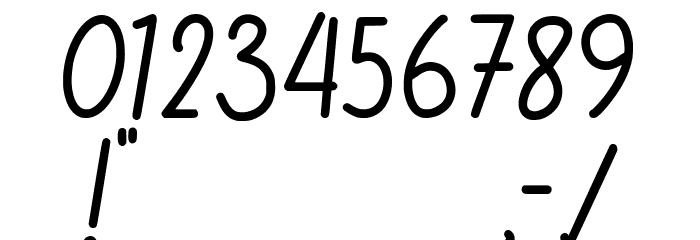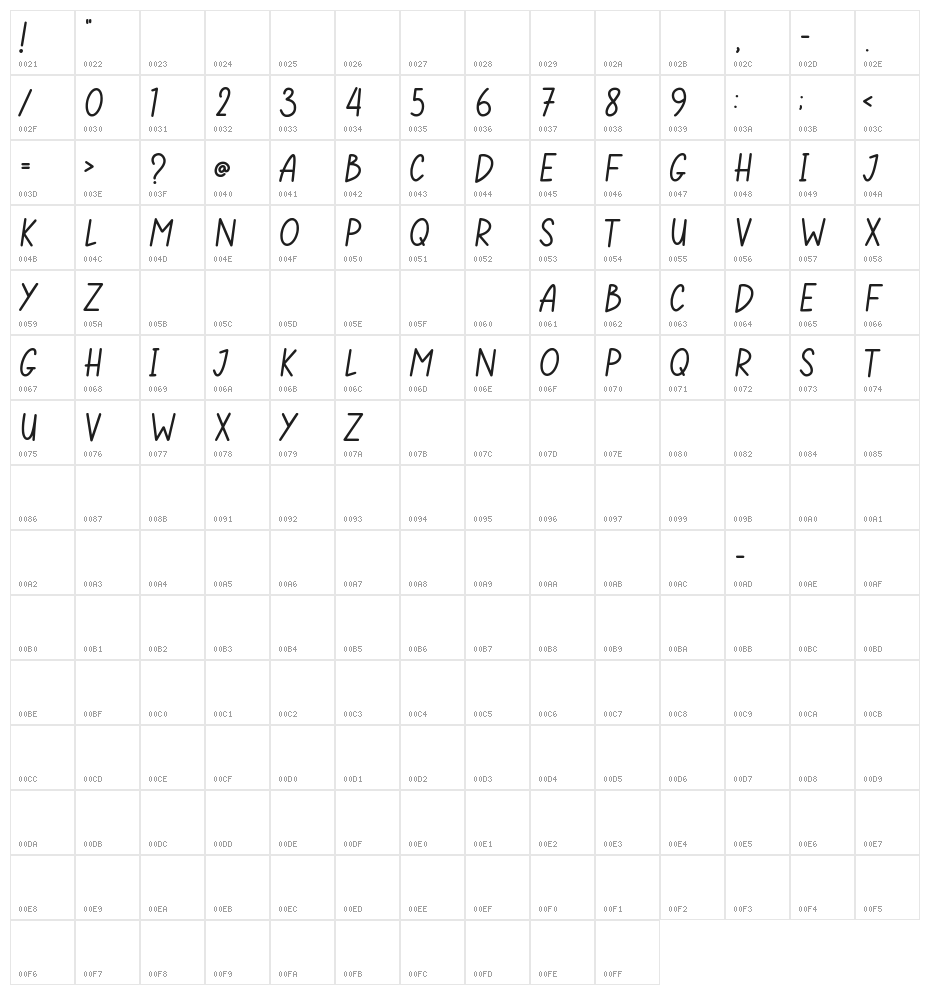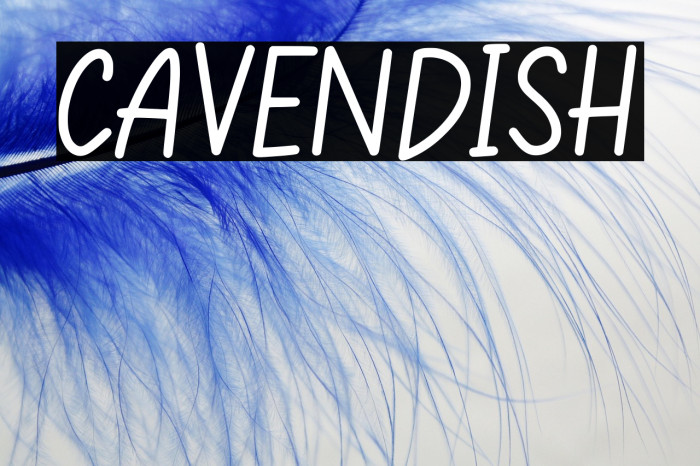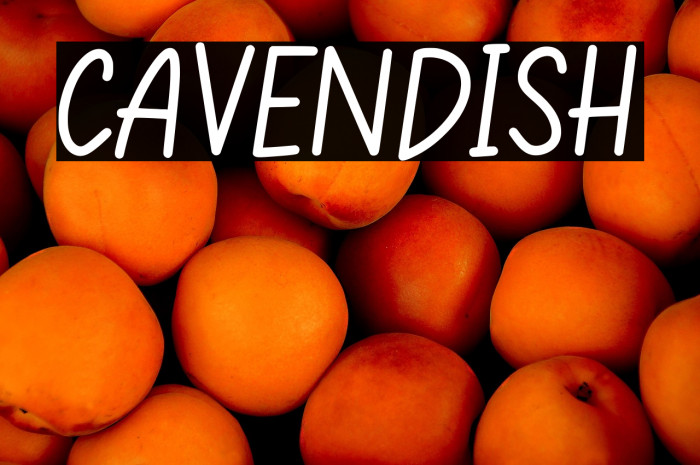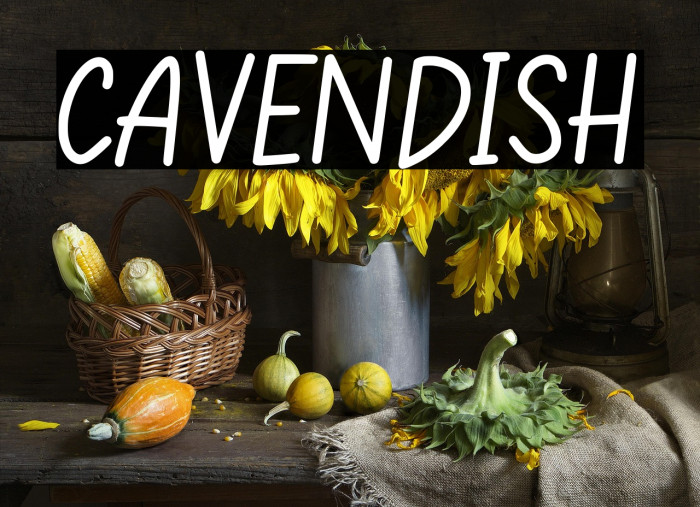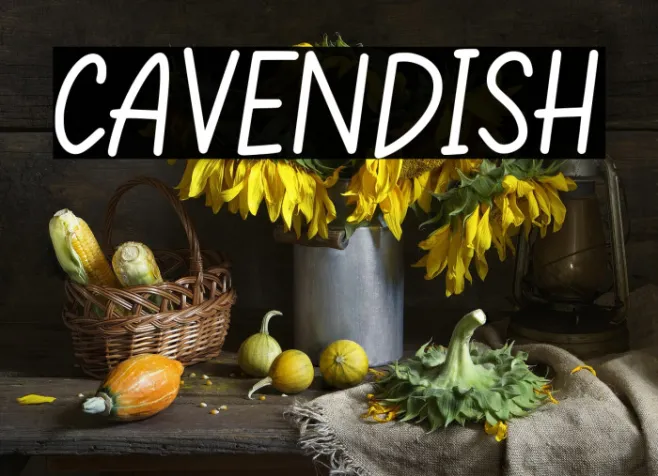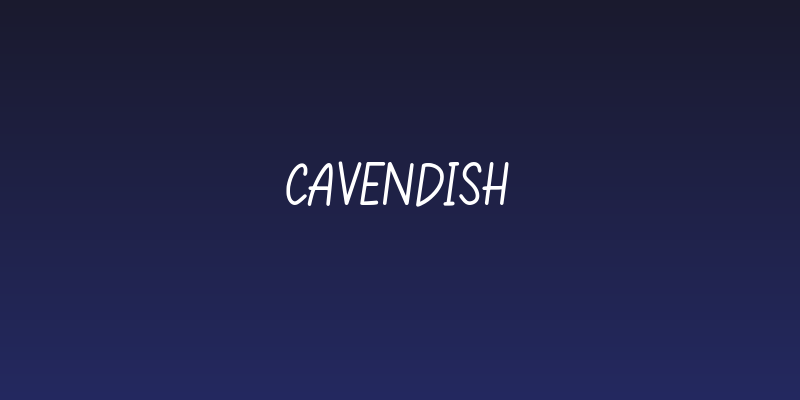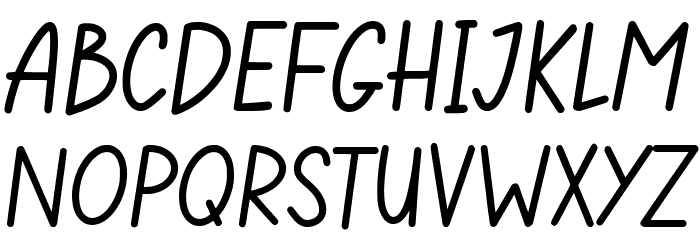
CAVENDISH Font
This font features a playful and casual handwritten style, characterized by smooth and flowing lines that give it a friendly and approachable appearance. The letters are slightly slanted, adding a dynamic feel to the text. The uppercase and lowercase letters maintain a consistent style, with rounded edges and a uniform stroke width that enhances readability. The numerals and special characters are designed to match the overall aesthetic, ensuring a cohesive look across all text elements. This font is versatile and can be used in various design contexts where a personal touch is desired.
| Proposed Projects | Ideal for greeting cards, invitations, personal branding, and social media graphics. |